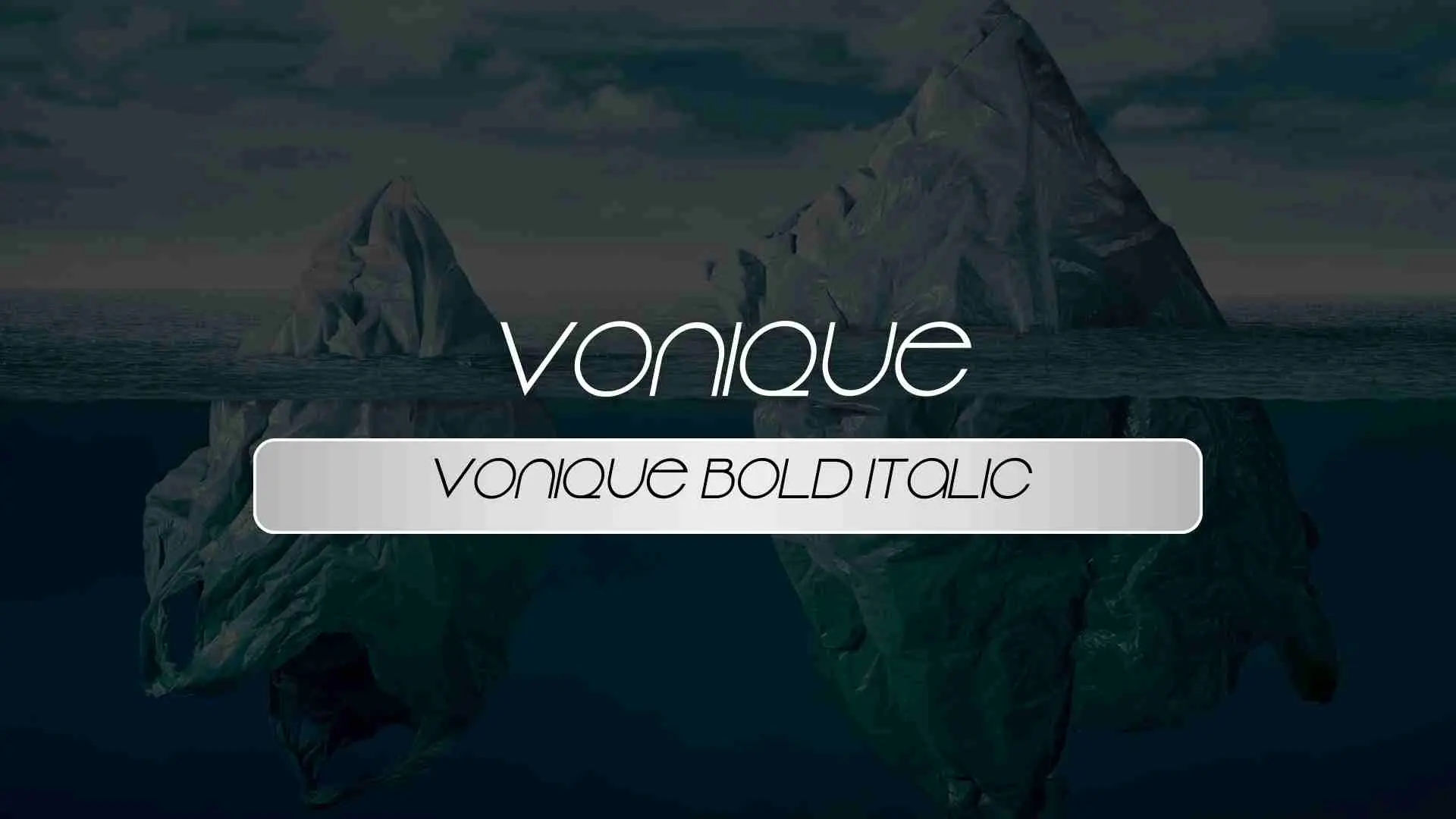
The font Vonique Bold Italic, designed by Dennis Ludlow, falls under the Display, Sans Serif category & Vonique font family. Its smooth, flowing letterforms make it a versatile choice for projects that require both elegance and readability. Vonique is particularly well-suited for Luxury Brand Logo, Titles, Advertising, Invitations, Merchandise, title pages and Magazine covers. With its balance of simplicity and decorative appeal, this font brings a polished touch to both personal and professional designs.